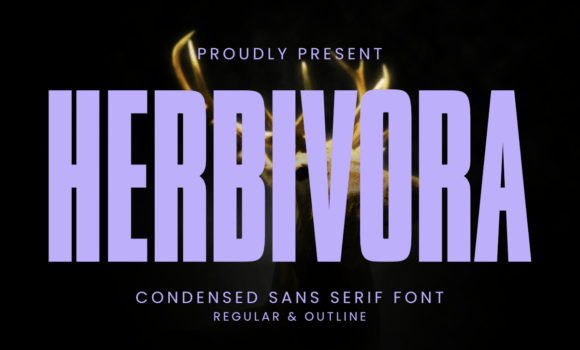
Herbivora Font – Free Download Introduction to Herbivora Font Enter the realm of “Herbivora”, the epitome of ultramodern condensed sans serif typography. 📸 Preview Gallery 6 images 📌 Product Name Herbivora Font 👤 Author Funtype Co. 📂 Category Explore ⬇️